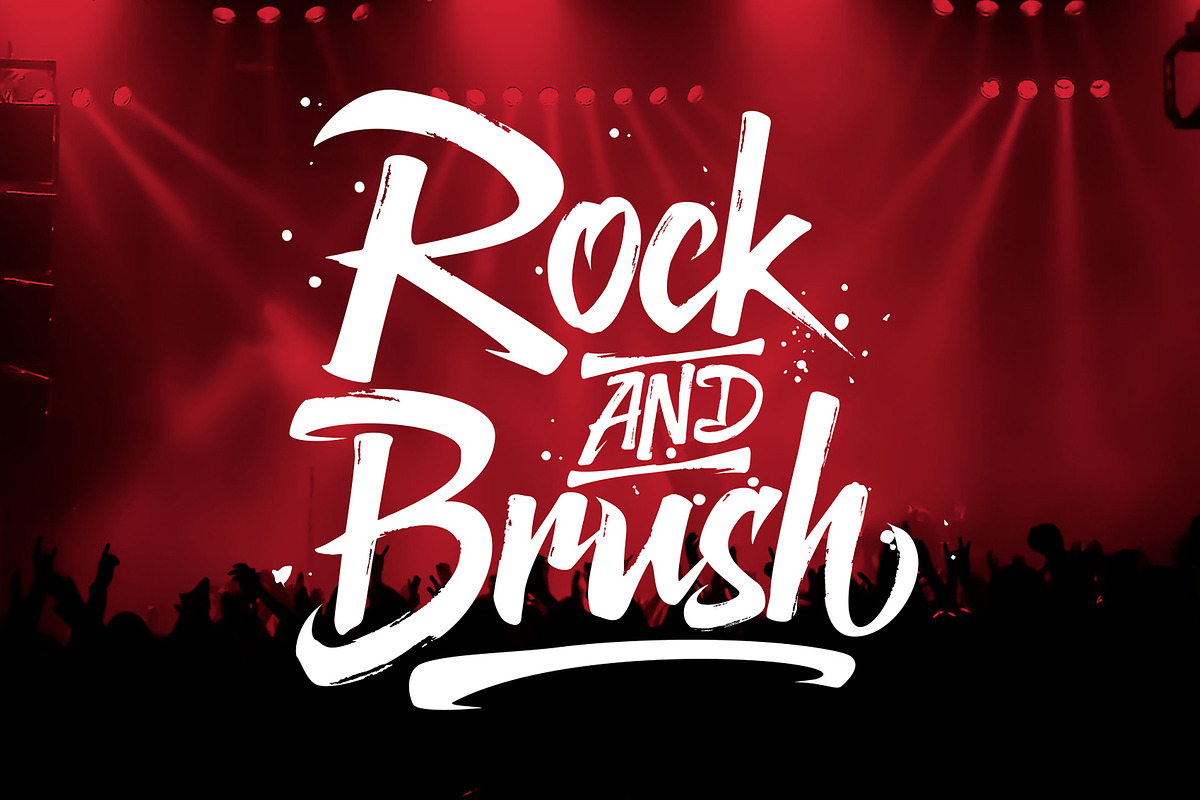
The Harley Style is new handwritten font brush, elegant and vintage feel character set. To create the beautiful combination, just mix the uppercase and lowercase then mix with the alternative glyphs and playing with swash. The Harley Style font includes a full set of capital and lowercase letters, as well as multi-lingual support, currency figures, numerals, punctuation & some extra glyphs.
The Harley Style
The Harley Swash
The Harley Style Font equipped with :
- Character Set A-Z
- Stylistic alternates
- ligature & swash
The Harley Style font is suitable font for many creative products & designs.